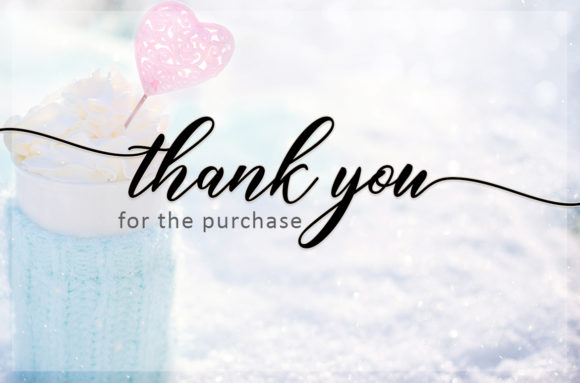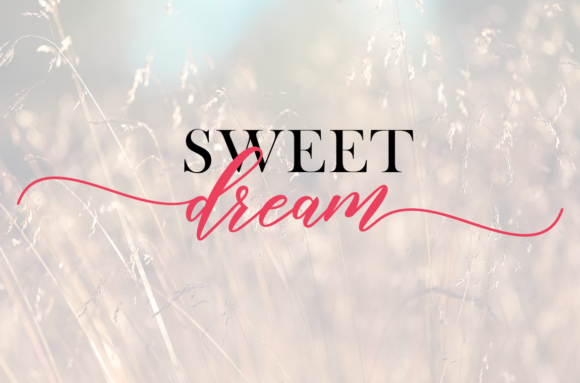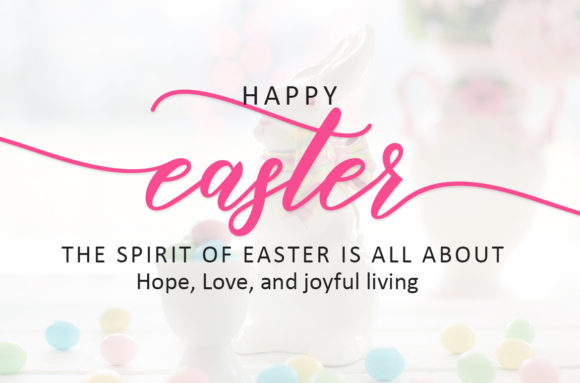
Introduction to Halley Script Font
Halley is a wonderfully light and romantic handwritten font with a charming twist.
Fall in love with its amazing swashes .
Key Features of Halley Script Font
Why Choose Halley Script Font?